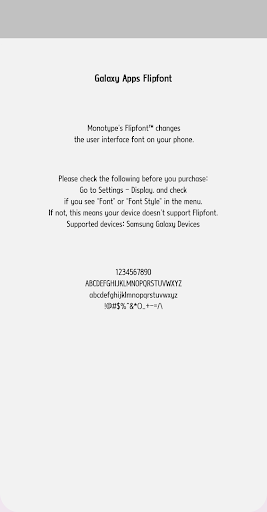
This typeface, which is expressed in the form of a long body due to the narrow width of the letters, will tidy up your image with a clean and refined look. It has a funny name.